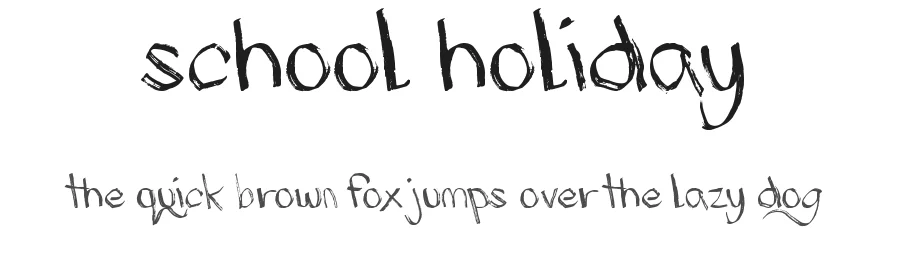
About Gurunge Font
Gurunge is a script & handwritten font designed by Xavier Juanola. It includes 236 glyphs, a regular weight, TTF (TrueType) format, and 209 languages. Gurunge is free to download; check the license details on this page before commercial use. Script & handwritten fonts like Gurunge work best for wedding invitations, greeting cards, signatures, and elegant branding.
Gurunge Font is a script font that shines as a display or heading face. Pair it with a clean sans-serif or serif font for body text β the contrast creates a clear hierarchy while the two styles stay balanced and easy to read.